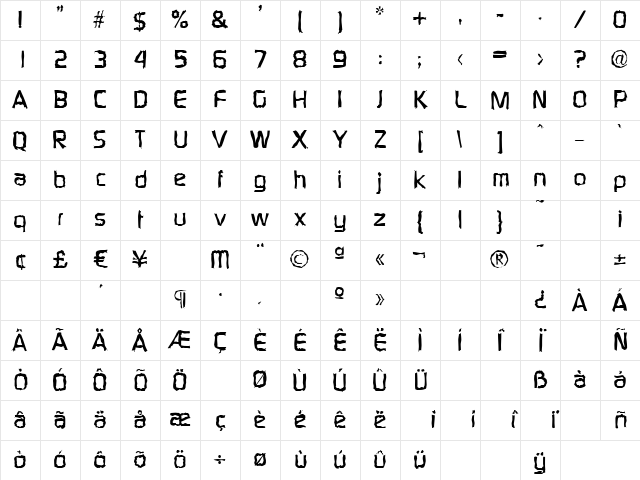
RandyBeckerRandom Bold
Design Context for RandyBeckerRandom
RandyBeckerRandom is a composed and adaptable typeface that performs quietly and consistently across a wide range of design contexts. Its bold stroke weight gives it real presence on the page.
Pro Tip: Use RandyBeckerRandom in both headline and body roles to test its range before committing to a single application.